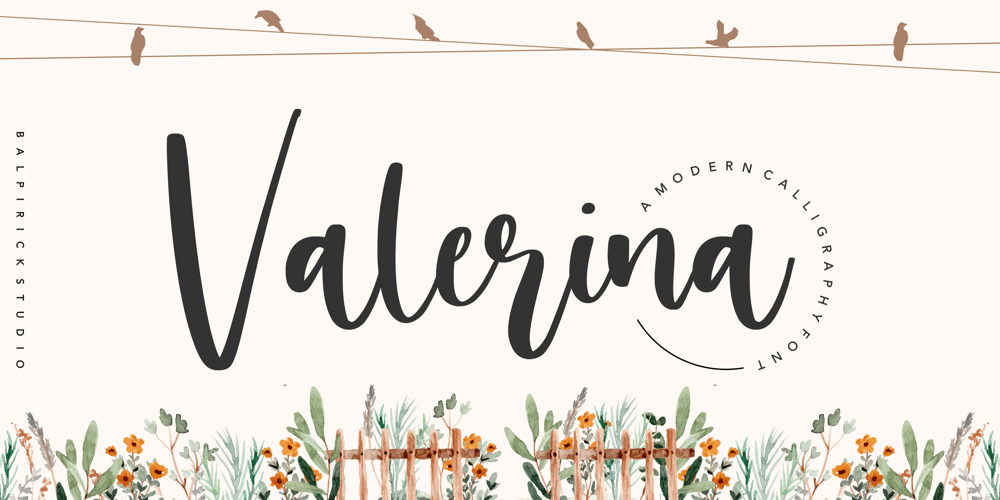
Valerina Font Family was designed by Restu Angga and published by Balpirick. Valerina contains 1 styles and family package options. Proudly Present, Valerina Font.Valerina is a modern calligraphy font.Valerina is perfect for product packaging, branding project, megazine, social media, wedding, or just used to express words above the background.Valerina is also multilingual support.Enjoy the font, feel free to comment or feedback, send me PM or email.Thank you!